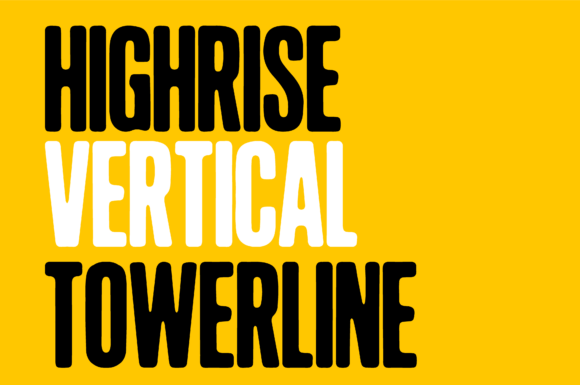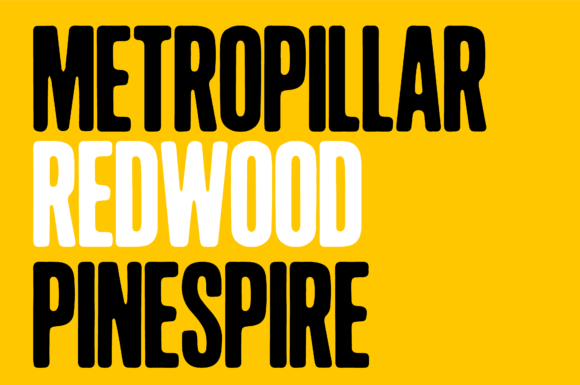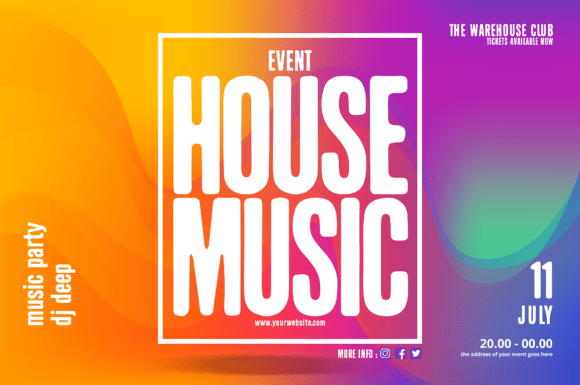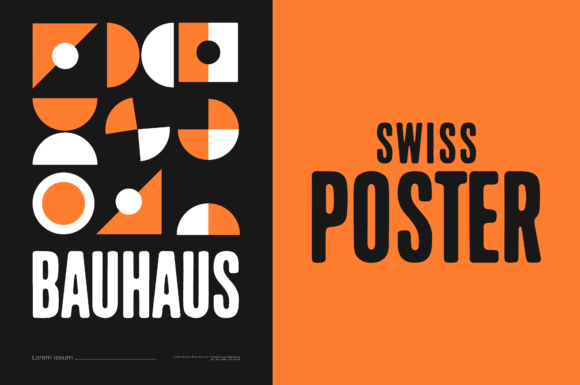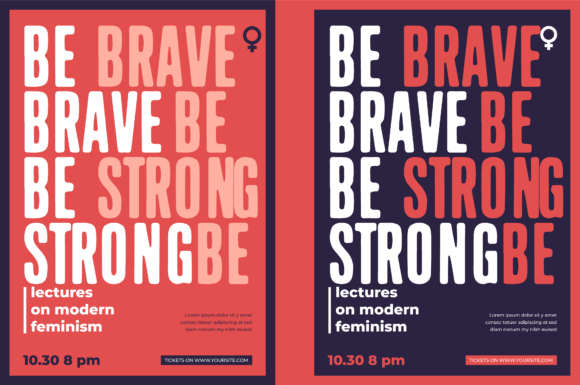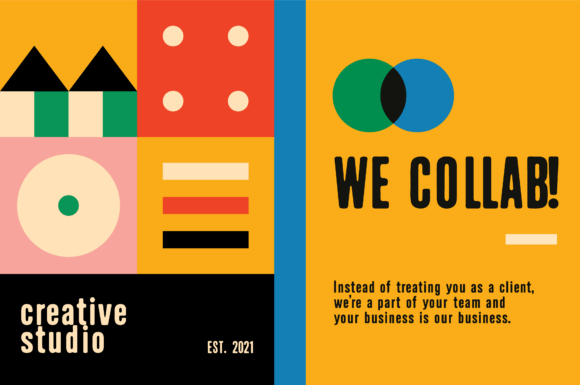
Introduction to Skyliner Font
Have you ever stared at a blank canvas, eager to unleash your creativity, only to be halted by the perfect font eluding you? For designers, finding the right typeface can be a daunting task, but what if I told you that the solution lies in the sleek and modern Skyliner Font?
As a versatile design resource, Skyliner Font brings bold personality to any creative project without sacrificing legibility. Its clean, elongated letterforms and subtly rounded corners make it an ideal choice for a wide range of applications, from editorial layouts and social media graphics to signage and packaging design.
With its high-quality design and transparent background, Skyliner Font is the perfect addition to any designer’s toolkit, offering a free download option that’s sure to elevate your creative project to the next level. Whether you’re crafting minimalist branding or dynamic promotional materials, Skyliner Font’s sleek contours and contemporary proportions make it the go-to choice for designers seeking a refined yet impactful sans serif font.
Key Features of Skyliner Font
- High-quality design resource ideal for creative projects, offering a unique and modern aesthetic.
- Features a transparent background, allowing for easy customization and versatility in your design.
- Designed with precision and attention to detail, ensuring a crisp and clear display at high resolutions (up to 300 DPI).
- Comes in a range of sizes, from 12pt to 72pt, making it suitable for various design applications, from small text to large headings.
- Includes a wide range of characters, including uppercase and lowercase letters, numbers, and punctuation marks, making it a comprehensive design resource.
- Perfect for designers looking for a free, high-quality font to elevate their creative project and add a touch of sophistication to their design.
Honest Review: Skyliner Font
As a designer, I’m always on the lookout for high-quality design resources to elevate my creative projects. The Skyliner Font is a great addition to my toolkit. ✨
One of the things I appreciate about the Skyliner Font is its versatility. It’s a free download, which is always a plus, and it comes in a range of weights and styles to suit different design needs. The font is also highly customizable, making it a great resource for designers who want to add a personal touch to their work.
Here are some of the key features of the Skyliner Font:
- Free download, making it an accessible design resource
- Transparent background, allowing for easy customization
- Range of weights and styles to suit different design needs
While the Skyliner Font is a great resource, there are a few limitations to consider: ⚠️
- Limited international character support, which may be a problem for designers working with non-English text
- No bold or italic styles, which may limit its use in certain design contexts
Overall, I’m impressed with the Skyliner Font. It’s a high-quality design resource that’s perfect for creative projects. While it may have some limitations, I think it’s well worth using in your design work.
Tips for Getting the Most Out of Skyliner Font
For a high-quality design, use the Skyliner Font on a transparent background to make the text stand out. Experiment with different font sizes and styles to create a visually appealing design.
The Skyliner Font is ideal for creative projects that require a modern and sleek look, such as:
- Website headers and footers